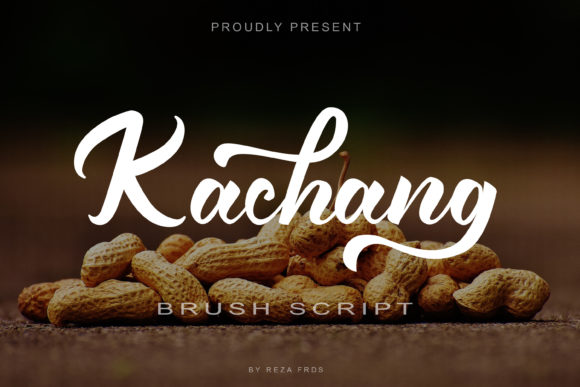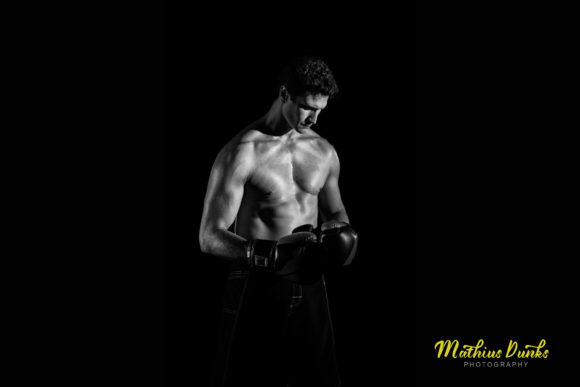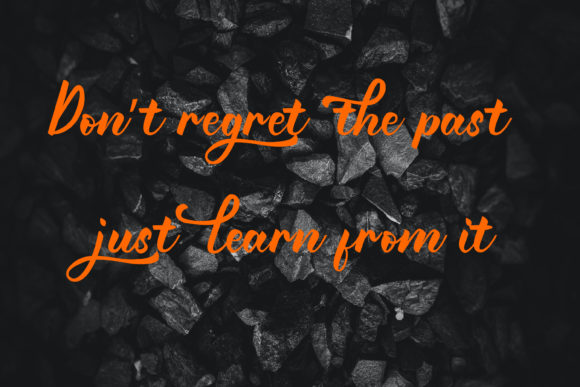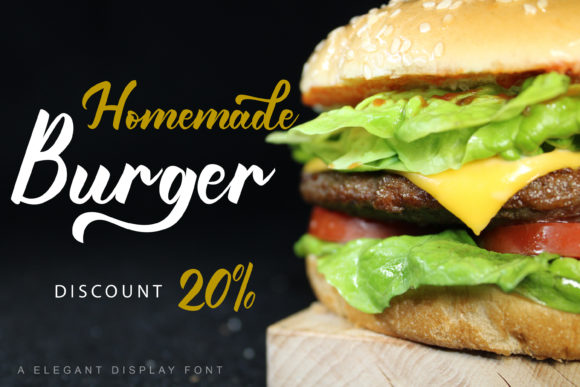
About Kachang Font
Kachang is a font that brings simplicity and relaxation to your design projects, offering a versatile option for a wide range of applications. With its casual and laid-back script style, this font adds a touch of informality and approachability to various design contexts.
One of the strengths of Kachang is its adaptability to branding projects. Whether it’s logos, business cards, or other branding materials, the font’s relaxed and handwritten feel can contribute to a sense of authenticity and friendliness. Its casual nature can help create a more relatable and down-to-earth image for a brand, appealing to audiences who value a genuine and approachable experience.
For wedding designs, Kachang brings a unique charm. Its simplicity and casual elegance can complement wedding invitations, save-the-date cards, and other materials associated with the special day. The font’s handwritten touch adds a personal and heartfelt feel to these pieces, creating an inviting atmosphere for the event.
Social media posts and advertising campaigns benefit from Kachang’s approachable style. Its relaxed appearance can help capture attention and convey a sense of authenticity, making content feel more relatable and engaging to viewers. The font’s versatility allows it to adapt to various social media platforms and advertising formats, maintaining a consistent and inviting visual tone.
In product packaging and design, Kachang can lend a sense of handcrafted authenticity. Whether used on labels, packaging materials, or product designs, the font adds a personalized touch that can resonate with consumers looking for products with a human touch.
The fact that Kachang is PUA encoded enhances its usability for designers. Access to all the glyphs and swashes means you can easily customize and enhance your designs with decorative elements, further tailoring each project to your creative vision.
In summary, Kachang is a simple and relaxed script font that brings a sense of approachability and authenticity to branding projects, logos, wedding designs, social media posts, advertising, product packaging, and more. Its PUA encoding ensures easy access to a variety of customization options, making it a valuable asset for any designer seeking a versatile handwritten feel.